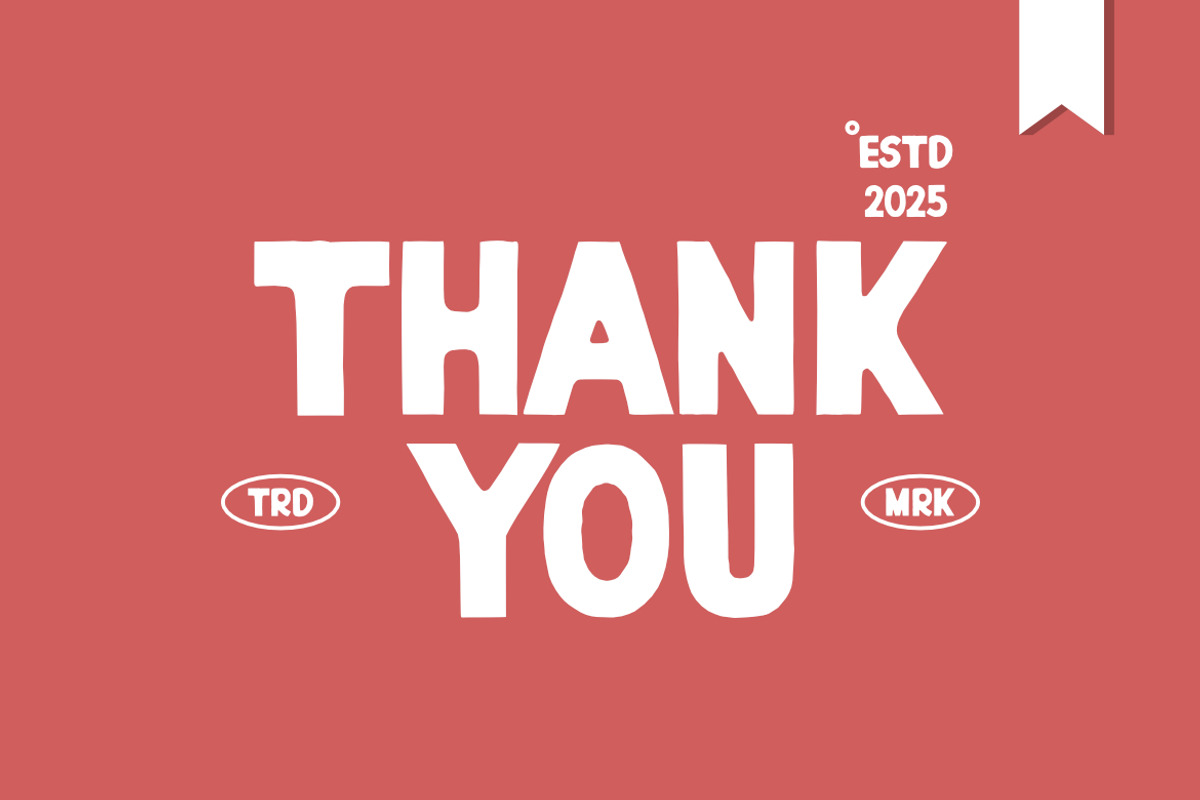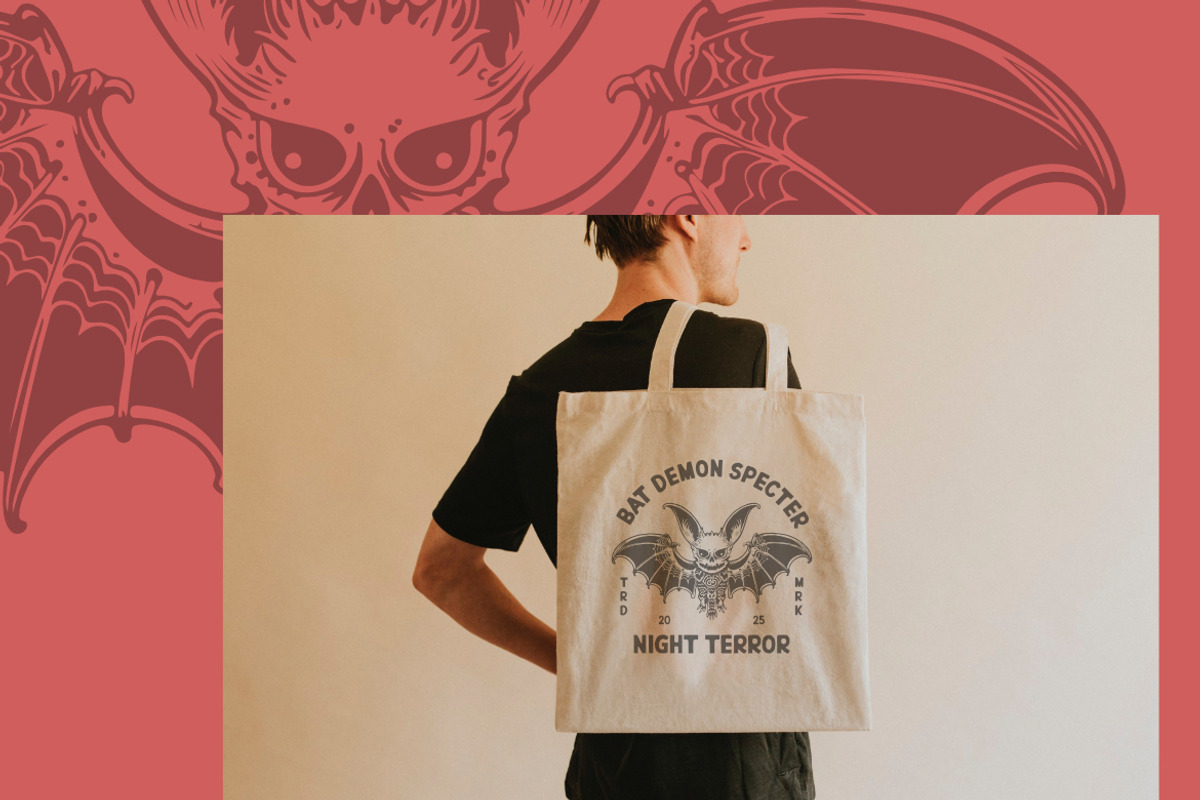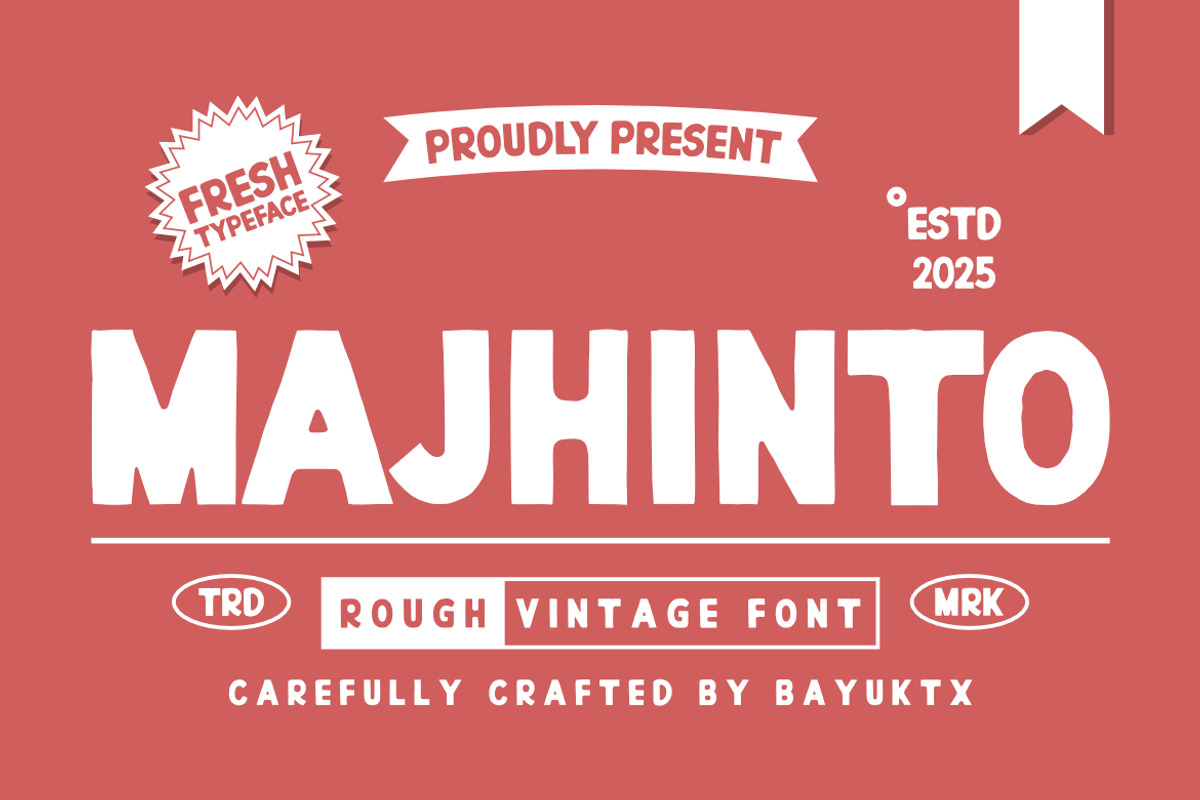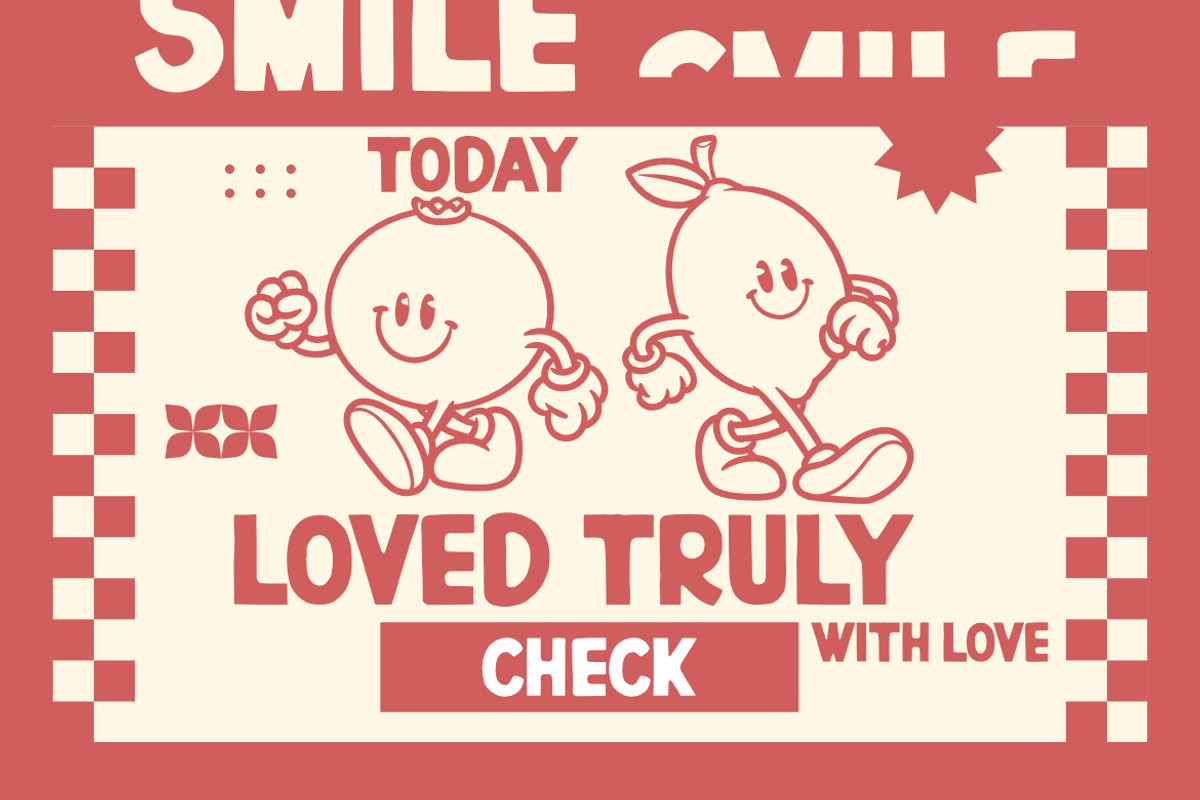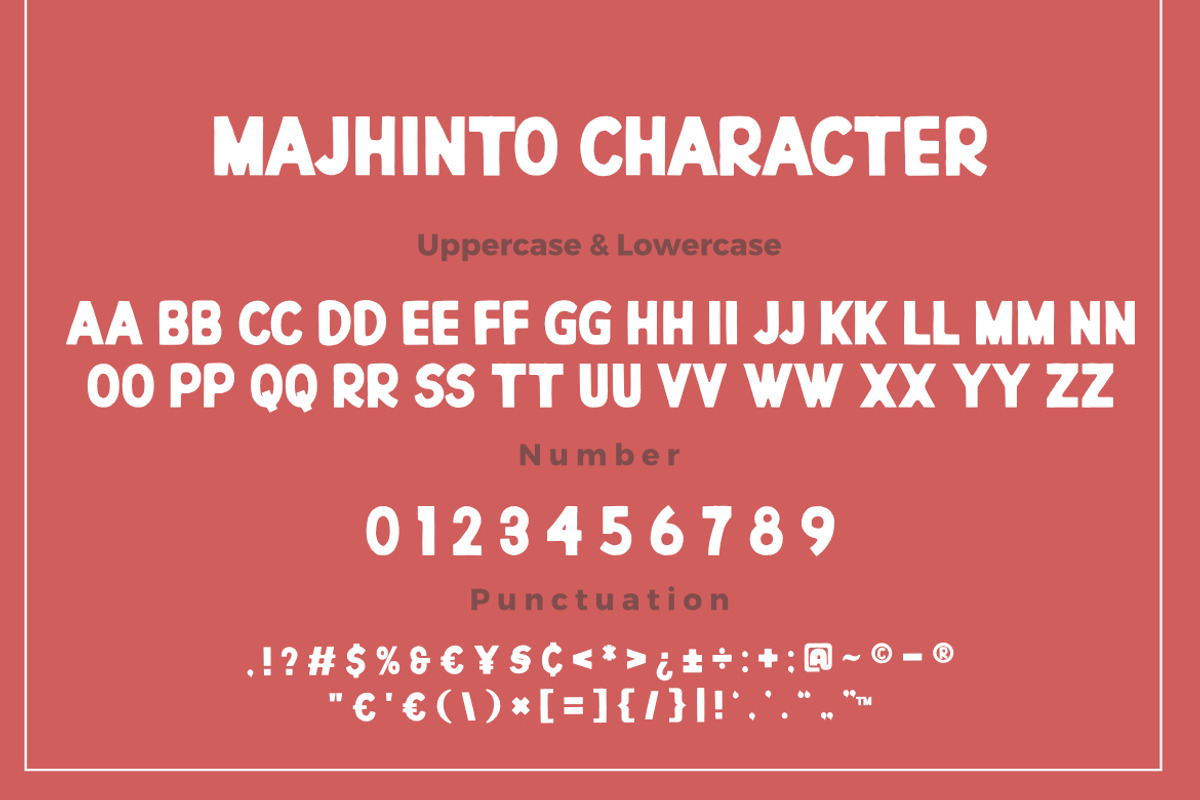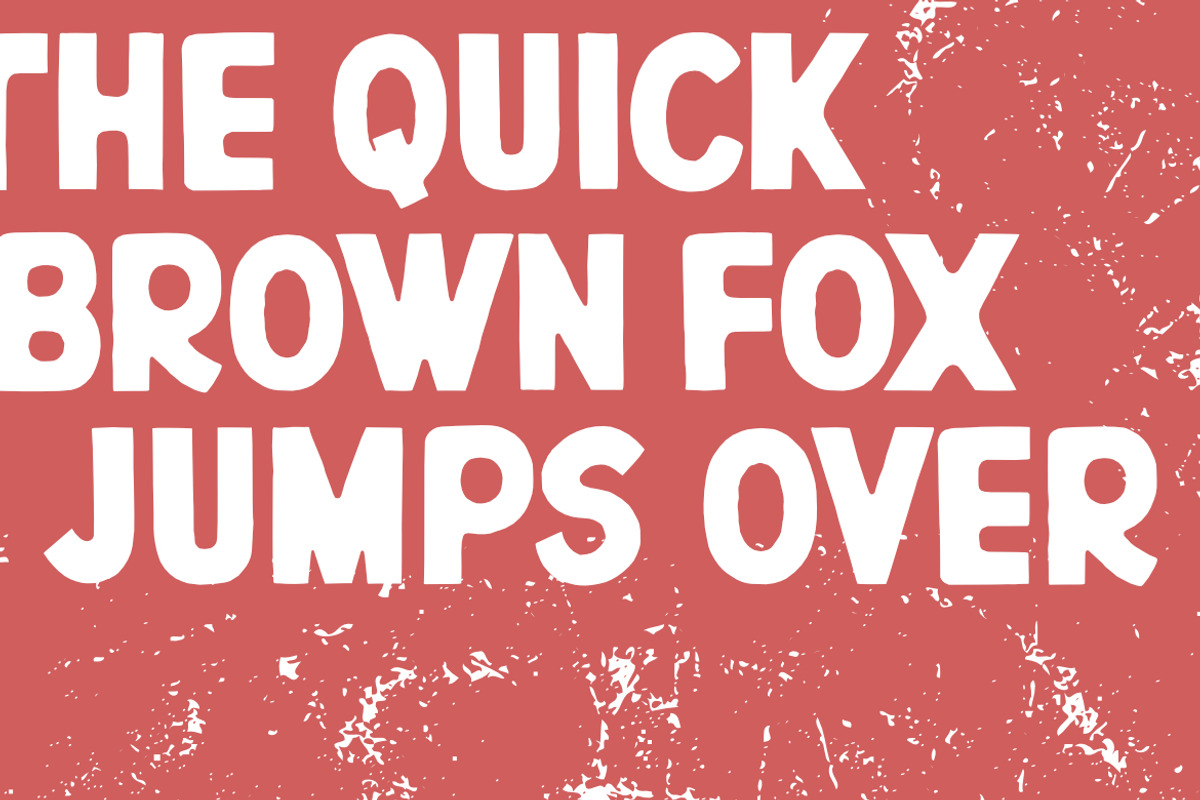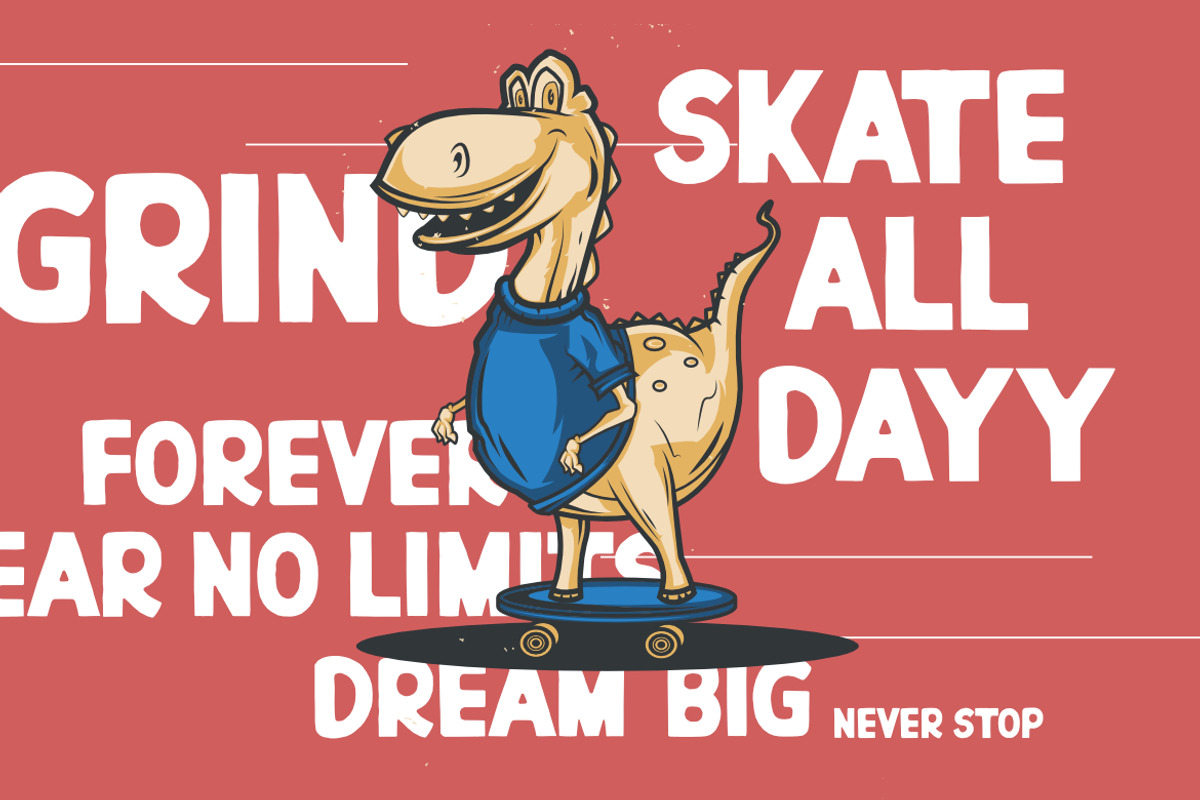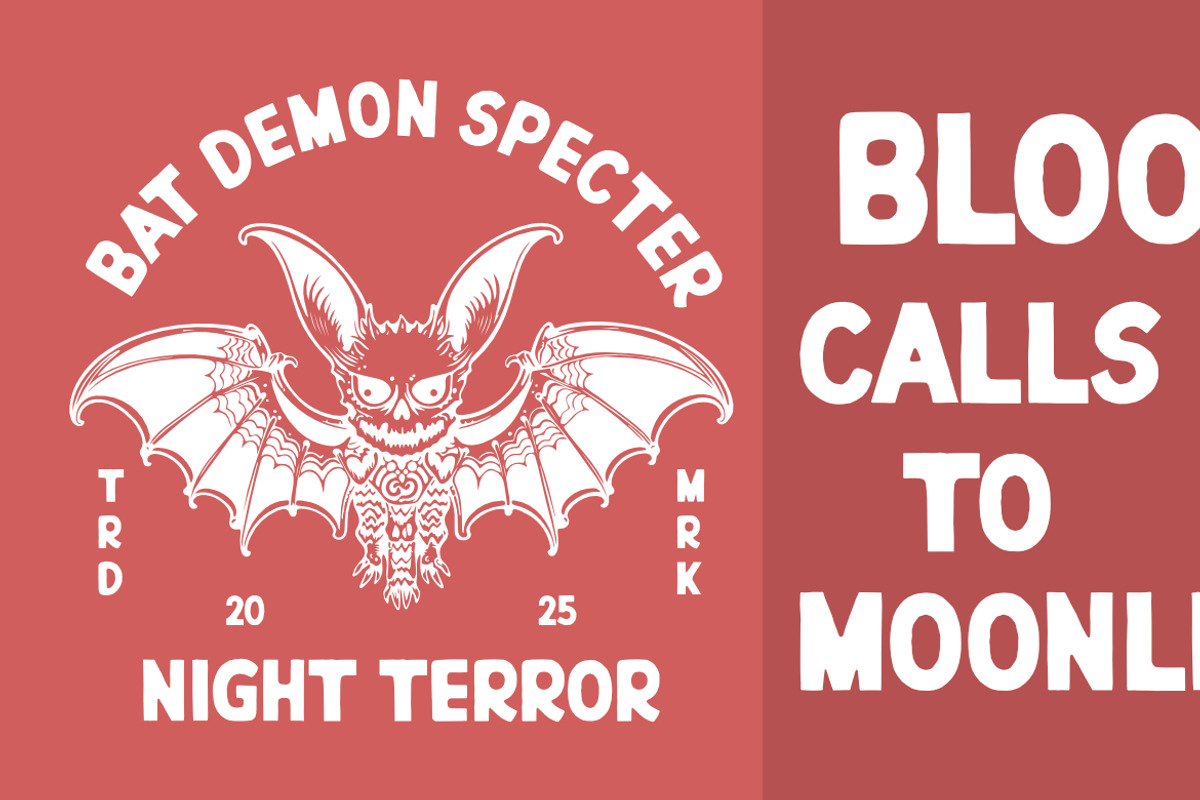
Majhinto - Rough Vintage Font
Majhinto Rough Vintage Font
Majhinto Rough Vintage Font is a classic-style typeface with a rough texture that evokes a retro, rustic, and authentic feel. Its design is inspired by vintage typography from the era of vintage signage and posters, yet remains flexible for a variety of modern design needs.
This font is perfect for branding, packaging, posters, apparel, labels, and even social media designs that want to convey an old-school, handmade, and strong character. The rough texture adds a natural touch that makes designs appear more vibrant and full of personality.
With the Majhinto Rough Vintage Font, every design will have a classic, strong, and characterful touch that makes your visual message stand out.